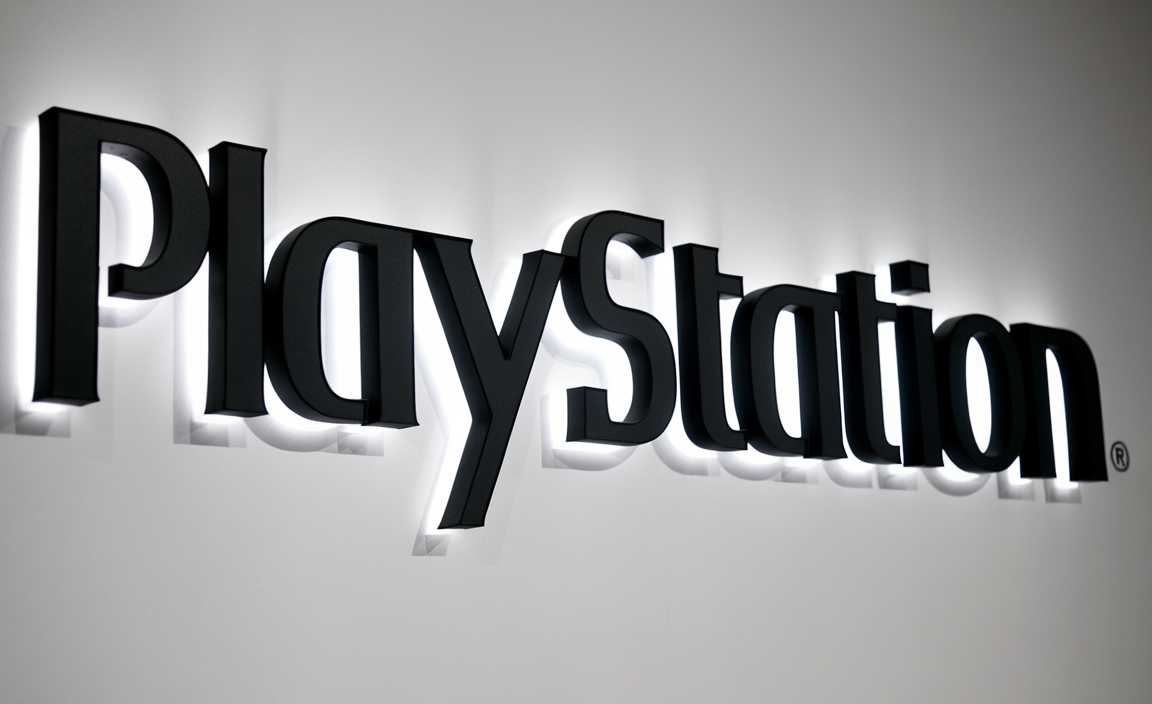
The PlayStation Font is not just a typeface; it’s a symbol of modern gaming culture, deeply associated with Sony Computer Entertainment and its iconic line of video game consoles. From the original PlayStation to the latest PlayStation 5, this font embodies the futuristic and innovative ethos of the brand.
Designed to complement the aesthetic of the consoles and their branding, it aligns perfectly with PlayStation’s bold, immersive universe. Crafted by Manabu Sakamoto, the PlayStation logo exemplifies the seamless integration of the “PS” letters, rendered in a sleek, three-dimensional style that has become synonymous with cutting-edge gaming.
PlayStation Font Family Includes
The PlayStation Font family primarily includes PlayStation Bold, which captures the essence of the console’s sleek and futuristic branding. It maintains the bold, clean, and impactful style that’s essential for PlayStation’s identity.
Where PlayStation Font Is In Use
The PlayStation Font plays a significant role in various elements of Sony’s gaming ecosystem, showcasing its versatility:
- PlayStation Logo: Featured prominently on the branding of all PlayStation consoles.
- PlayStation Network (PSN): Integral to the user interface design of the online platform.
- PlayStation Console Branding: Seen from the original PlayStation to the PS5.
- PS Vita & PlayStation Portable: Used in handheld gaming devices and their marketing materials.
- PS Store: Applied in the digital storefront for games, apps, and media.
- PlayStation Buttons: Featured in the controller button designs like Triangle, Circle, X, Square.
- PlayStation Broadband Navigator: Used in branding for internet-based services on the PS2.
The PlayStation Font is not just a typeface. It is an integral part of Sony’s gaming legacy. Its sleek, modern, and futuristic design has contributed to creating an enduring cultural impact, from the original PlayStation console to the cutting-edge PS5. Whether you’re working on fan art, branding, or game-related projects, this font provides a perfect balance of style and functionality, allowing you to tap into the gaming culture with a futuristic edge.
2.What Font Is Similar To The Playstation Logo?
Zrnic by Typodermic Fonts is a close match to the PlayStation logo font, with a similar clean, futuristic aesthetic.